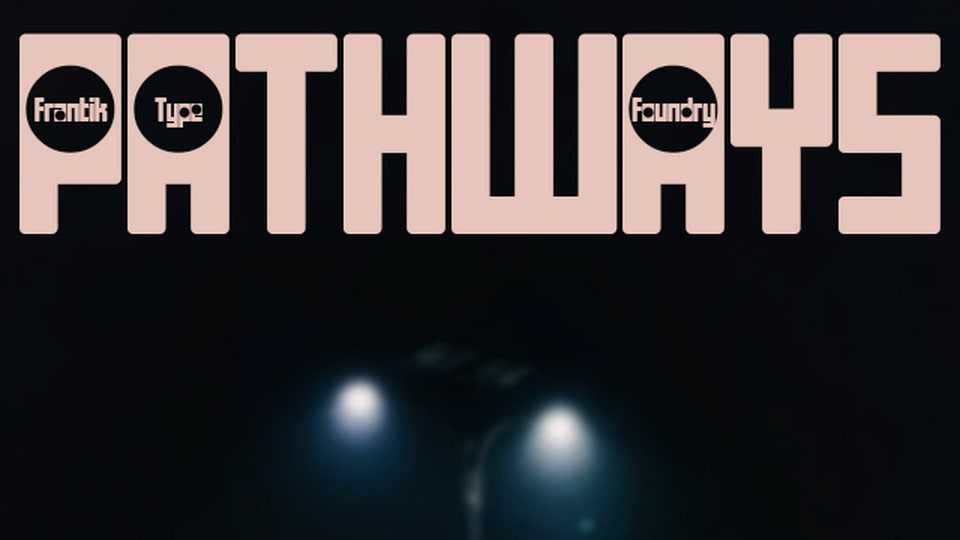
Download Pathways font, a geometric display typeface that pays homage to the iconic Williamson template. Pathways font is the perfect choice for projects that demand a balance between timeless design and modern appeal.